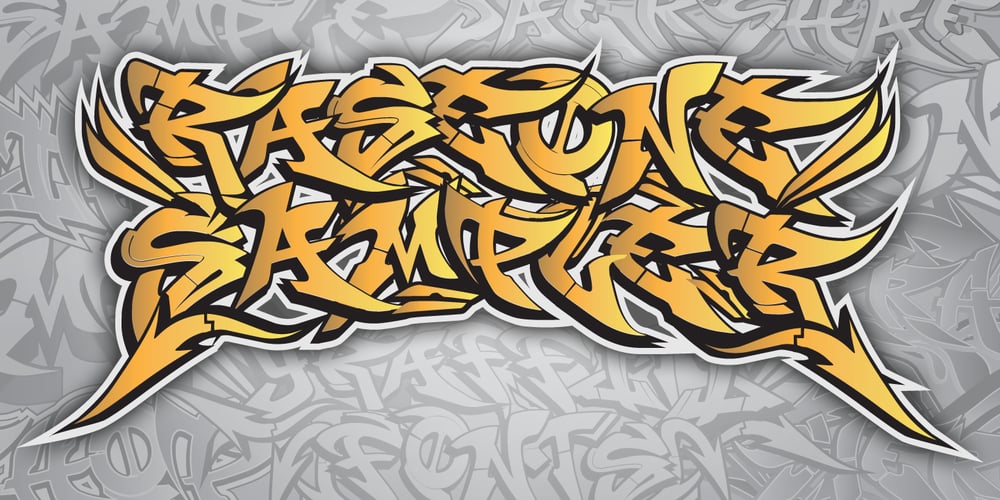
RaseOne
RaseOne font
RaseOne Font Family was designed by Matthew Napolitano and published by Graffiti Fonts. RaseOne contains 5 styles and family package options. The RaseOne family consists of 5 stackable fonts that can be layered in various combinations to add fills, outlines, & 3D treatments. This family was deigned to emulate the signature “wildstyle” of graffiti artist Rase One. Each style includes 2 distinct letter styles as well as numbers, symbols punctuation, arrows, flourishes and more. RaseOne was one of the first graffiti style fonts ever published and has been widely used within Hip-Hop culture and beyond.